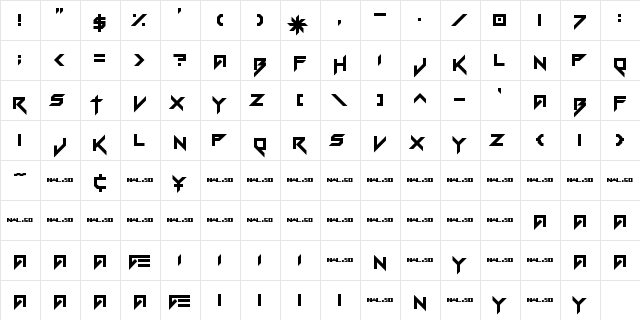
Vermin Vibes Regular
| Designer | NAL |
Design Context for Vermin Vibes Typeface
Vermin Vibes is a composed and adaptable typeface that performs quietly and consistently across a wide range of design contexts.